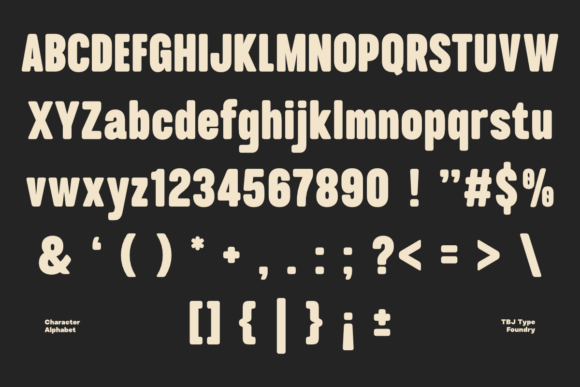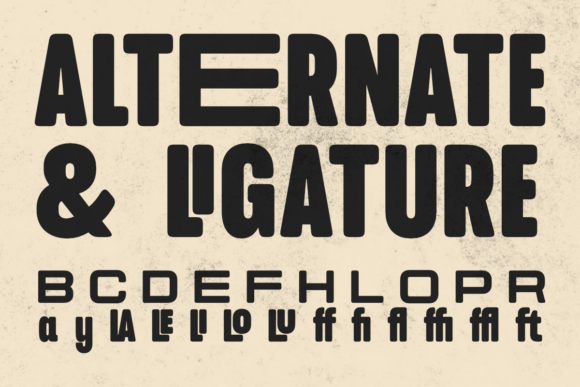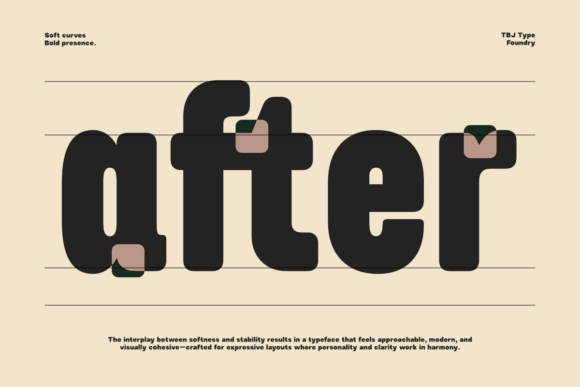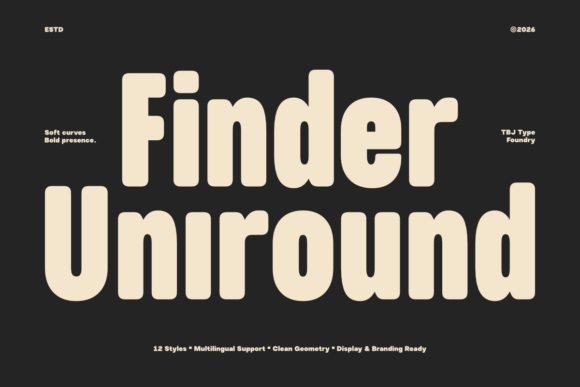
Discover the Friendly and Versatile Finder Uniround Font
In the world of typography, fonts play a crucial role in conveying messages, evoking emotions, and creating lasting impressions. For designers and crafters seeking a typeface that embodies a strong, friendly presence, Finder Uniround is an exceptional choice. This soft-bold display font is carefully crafted with unified rounded forms, making it perfect for a wide range of design applications.
The Characteristics of Finder Uniround
Finder Uniround is defined by its smooth geometry and clean construction, delivering a warm yet confident tone that is ideal for contemporary visual work. The font’s design focuses on balancing thickness and curvature to create a clear, approachable voice. This balance allows Finder Uniround to stand out without feeling aggressive, making it suitable for various design directions.
Consistent, Compact, and Visually Cohesive
One of the standout features of Finder Uniround is its consistent, compact, and visually cohesive letterforms. The font’s shapes are carefully designed to bring harmony across every letter, creating a sense of unity and coherence. This makes it perfect for headlines, posters, branding, packaging, and editorial layouts where clarity and personality are essential.
Versatility Across Design Directions
Finder Uniround’s fully rounded terminals soften its weight, making it versatile across expressive and minimal design directions. Whether you’re looking to create bold and eye-catching compositions or more subtle and understated designs, this font adapts seamlessly. Its friendly and approachable nature makes it an excellent choice for designers seeking to add a human touch to their work.
Ideal Applications for Finder Uniround
Finder Uniround is an excellent choice for various design applications, including:
- Headlines: The font’s bold and confident tone makes it perfect for grabbing attention and conveying important messages.
- Posters: Finder Uniround’s clear and approachable voice ensures that your message is communicated effectively, even from a distance.
- Branding: The font’s friendly and versatile nature makes it an excellent choice for creating a strong brand identity.
- Packaging: Finder Uniround’s compact and visually cohesive letterforms make it perfect for packaging design, where space is often limited.
- Editorial Layouts: The font’s clarity and personality make it an excellent choice for editorial layouts, such as magazines, newspapers, and blogs.
Why Choose Finder Uniround?
In a world where typography plays a crucial role in design, Finder Uniround stands out as a unique and versatile font. Its soft-bold display typeface, unified rounded forms, and strong, friendly presence make it an excellent choice for designers and crafters seeking to add clarity and personality to their work.
Finder Uniround is a remarkable font that offers a perfect blend of style, versatility, and friendliness. Its smooth geometry, clean construction, and balanced design make it an excellent choice for a wide range of design applications. Whether you’re a designer, crafter, or simply someone who appreciates great typography, Finder Uniround is definitely worth exploring.
In conclusion, if you’re looking for a font that embodies a strong, friendly presence and is versatile across various design directions, look no further than Finder Uniround. Its unique characteristics, ideal applications, and exceptional design make it an excellent addition to any design project.
| Author | Taboja Studio |